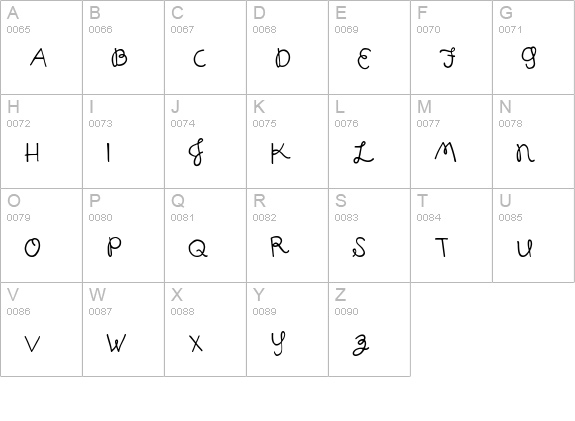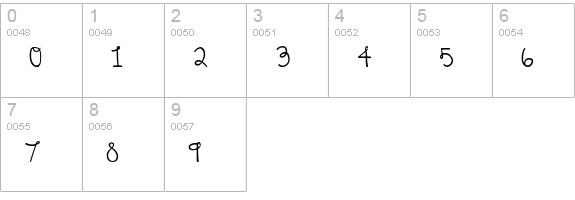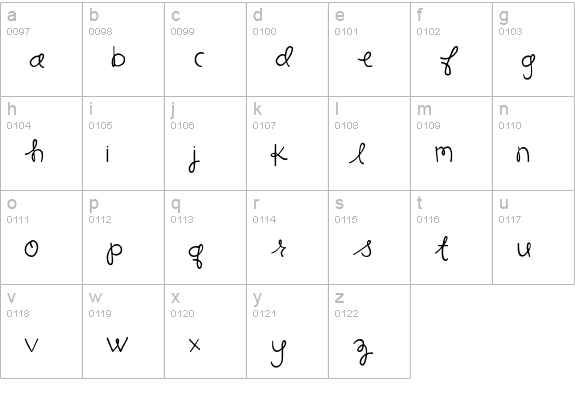
Honey Bunches Font Details
Honey Bunches is a charming and playful font that exudes warmth and friendliness. Its rounded edges and whimsical curves give off a delightful and inviting vibe, perfect for a variety of creative projects. The unique letterforms of Honey Bunches add a touch of personality and character, making it stand out from the crowd. Whether you're designing a cheerful greeting card, a fun poster, or a cute logo, this font will surely bring a smile to your audience's faces. And the best part? Honey Bunches is freely available for download at FontsMarket.com! So go ahead and add this delightful font to your collection without any cost. Embrace the sweetness of Honey Bunches and let your creativity flow with this free and fabulous typeface.